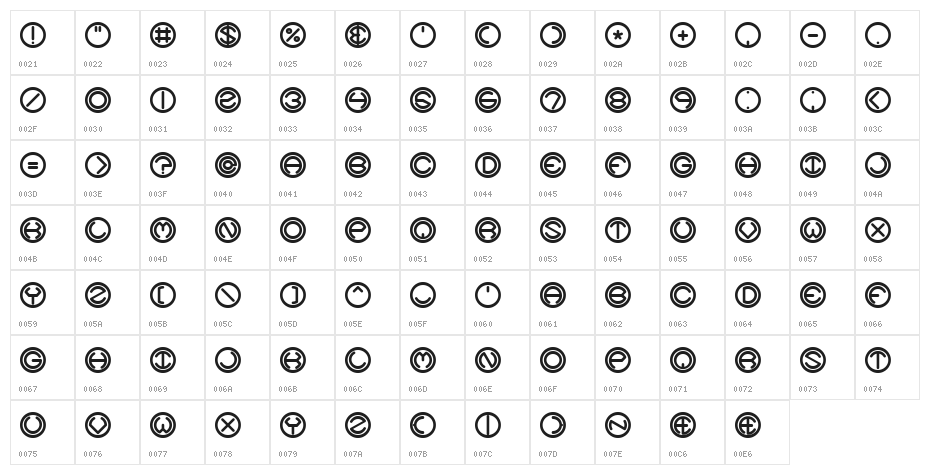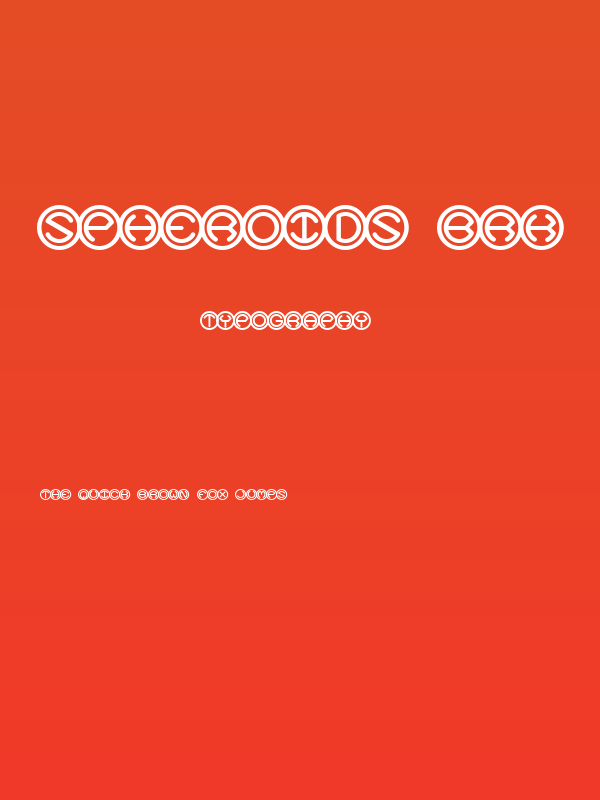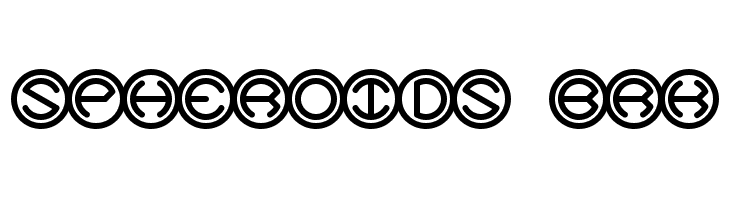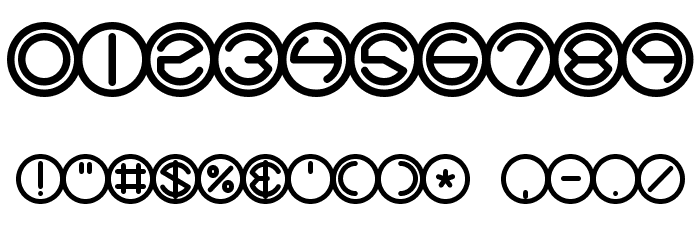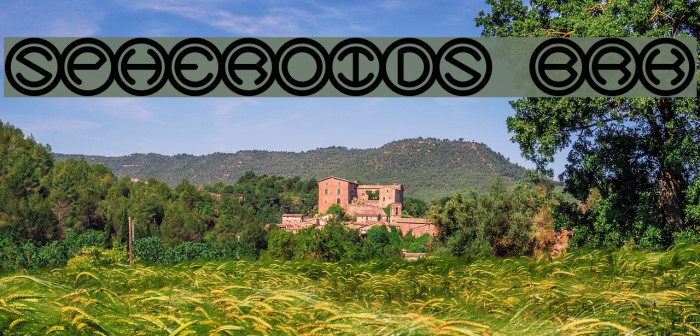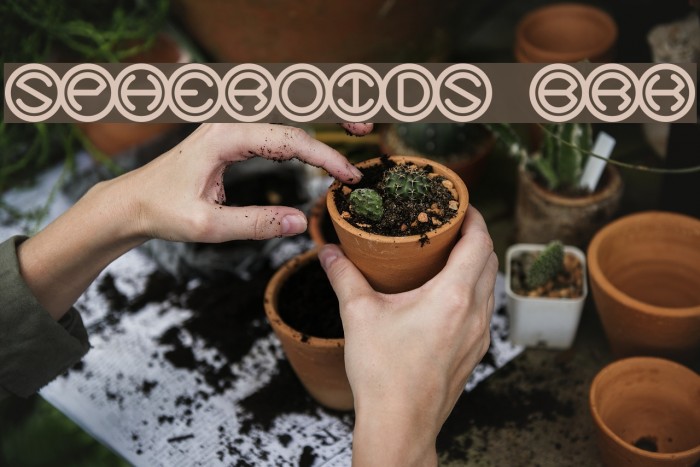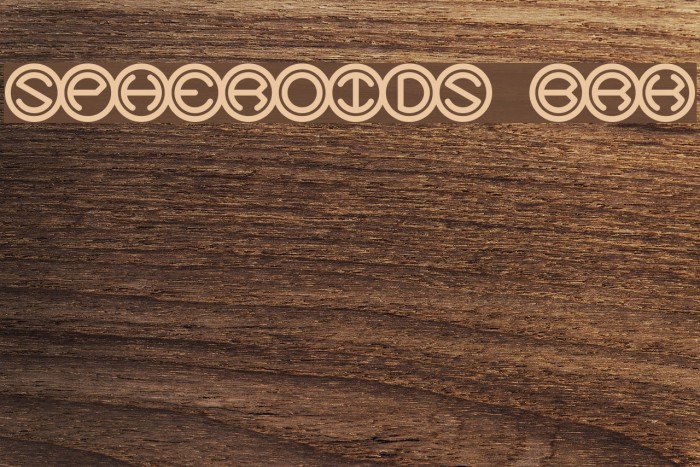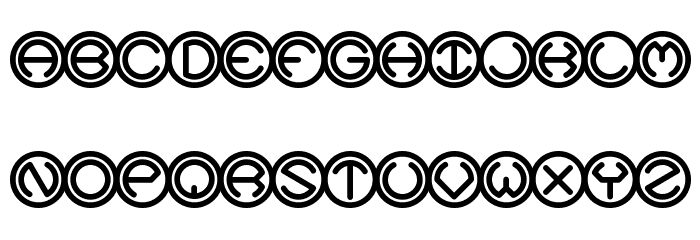
Spheroids BRK Font
Spheroids BRK Description
This font features a unique and playful design where each character is enclosed within a circular border, creating a distinct and cohesive appearance. The letters and numbers are bold and geometric, with a consistent thickness throughout, giving them a modern and futuristic look. The circular enclosures add a decorative element, making the font stand out and suitable for creative projects. The overall style is both eye-catching and functional, offering a balance between readability and artistic flair.
| Use Case | Logos, Headlines, Posters |
| Proposed Projects | Ideal for logos, posters, and branding materials that require a modern and playful touch. |